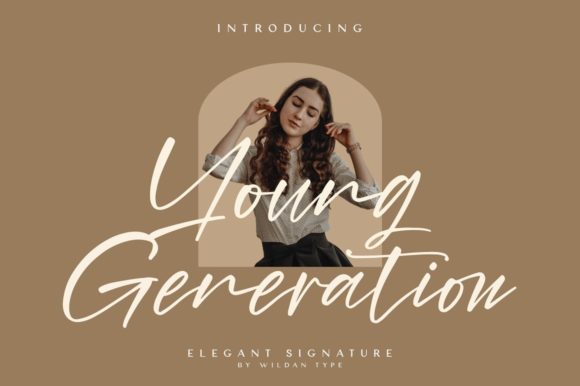
Unleash the artistry within and embark on an extraordinary typographic journey with Young Generation Font, a captivating script font that breathes life into your creative endeavors. Let your imagination run wild as you explore the boundless possibilities of this modern and distinctive script, meticulously crafted by Wildan Type.
Experience the allure of natural writing styles, effortlessly flowing with grace and elegance. Transform your designs into masterpieces, whether it's branding, web designs, editorial works, prints, crafts, or captivating quotes. Witness the magic as Young Generation Font adds a touch of sophistication and charm to your logotypes, wedding invitations, romantic cards, labels, packaging, and even the spelling of names.
Immerse yourself in a world of creativity and let Young Generation Font become your muse. Witness the seamless transition of your ideas into stunning visuals, as this remarkable font brings your concepts to life with effortless ease. Embrace the artistic potential within and watch as your designs blossom into works of art.